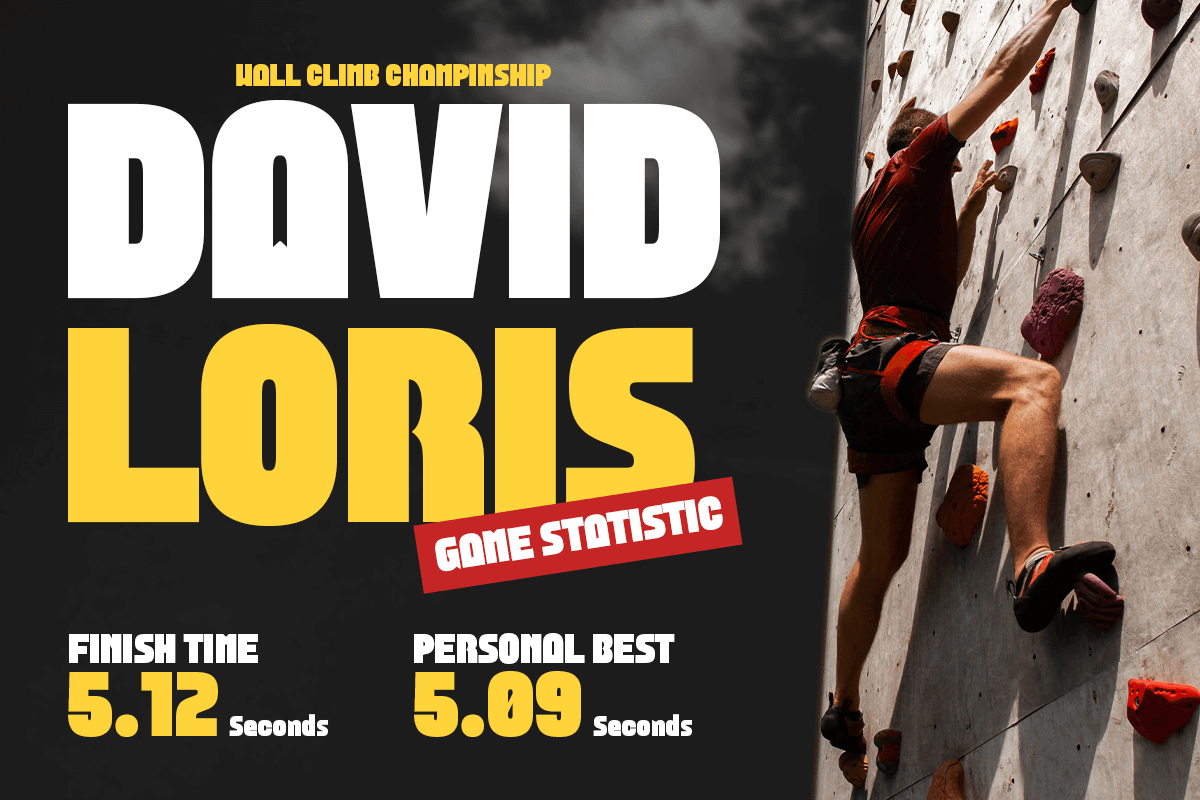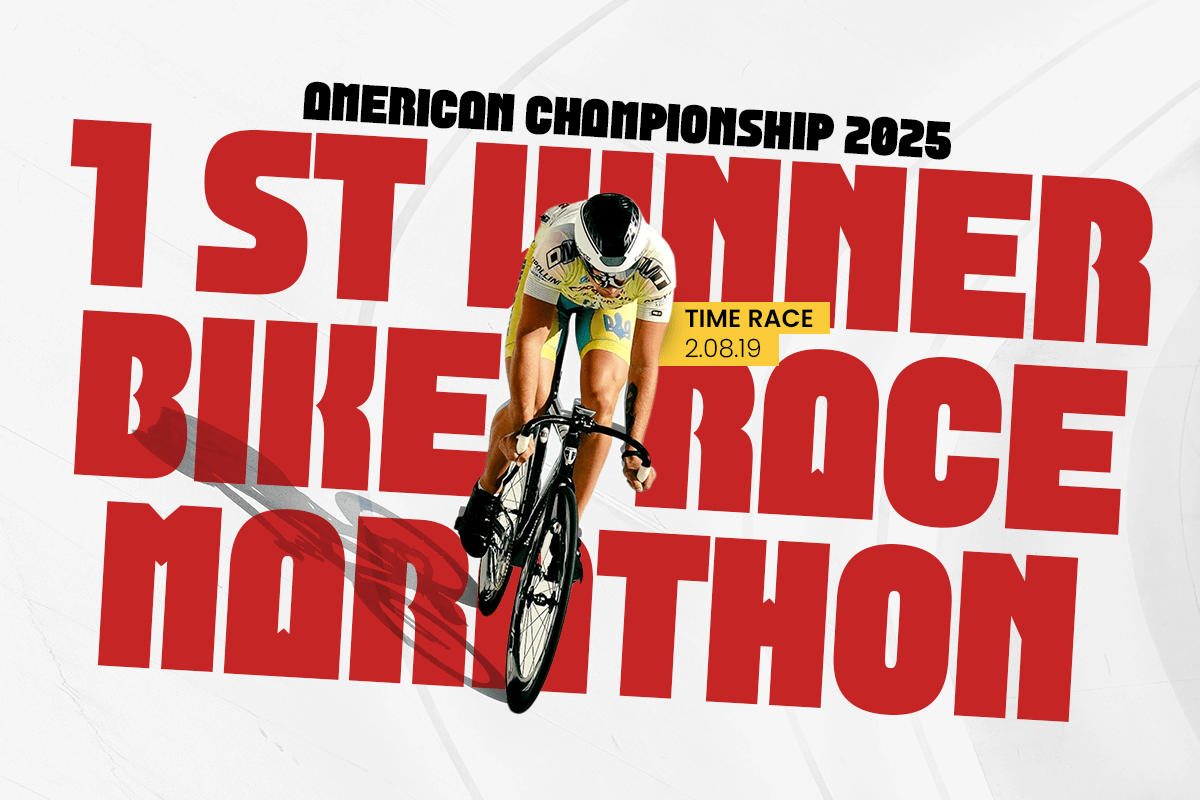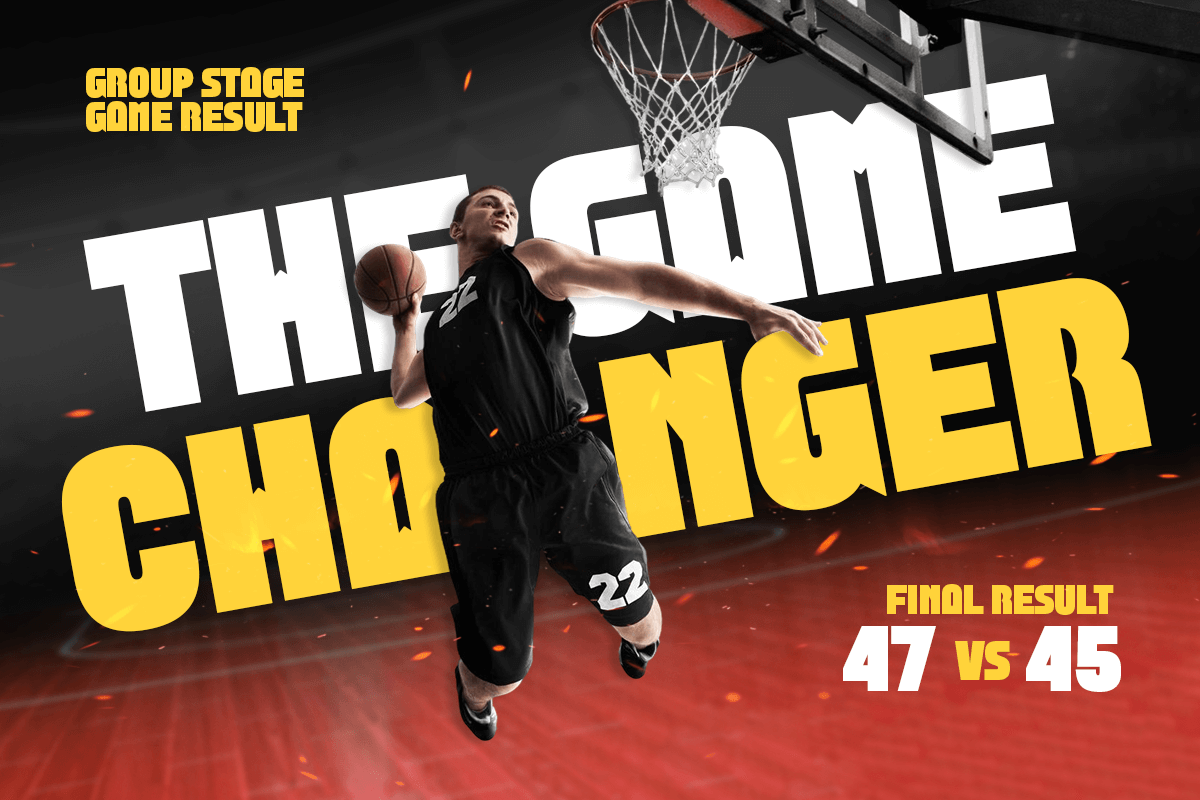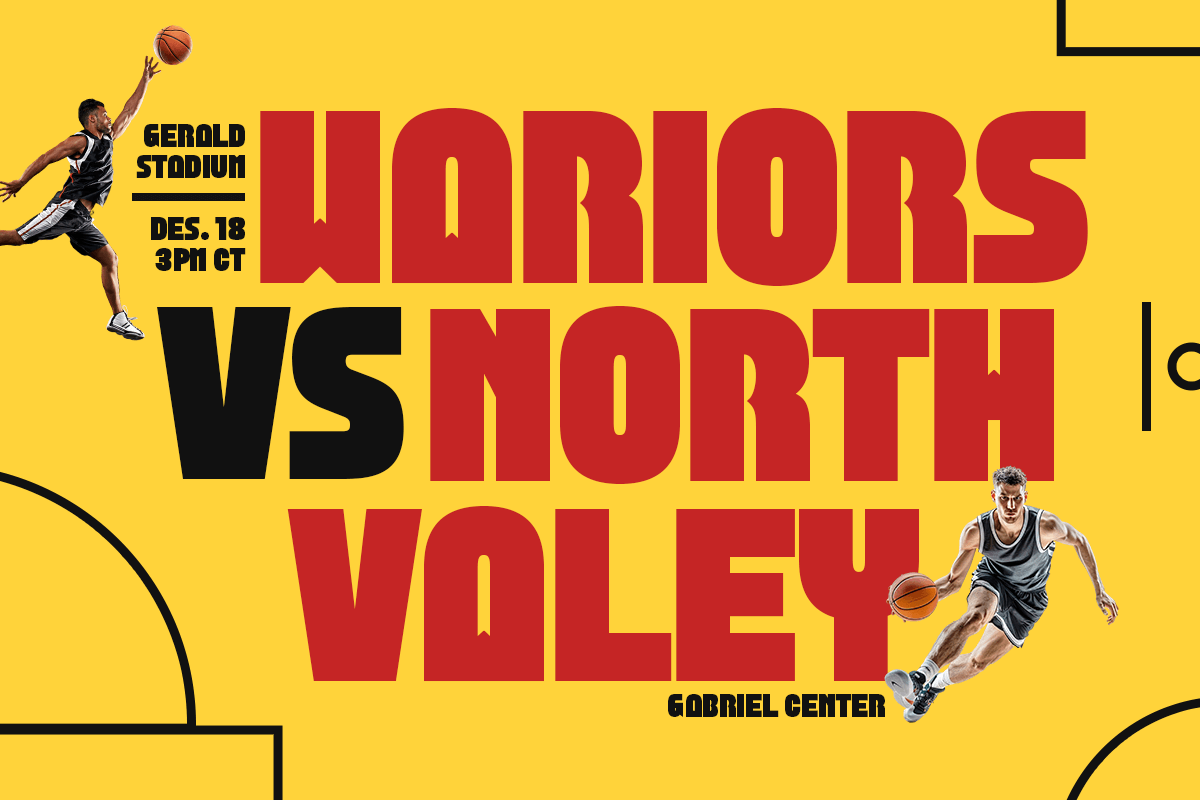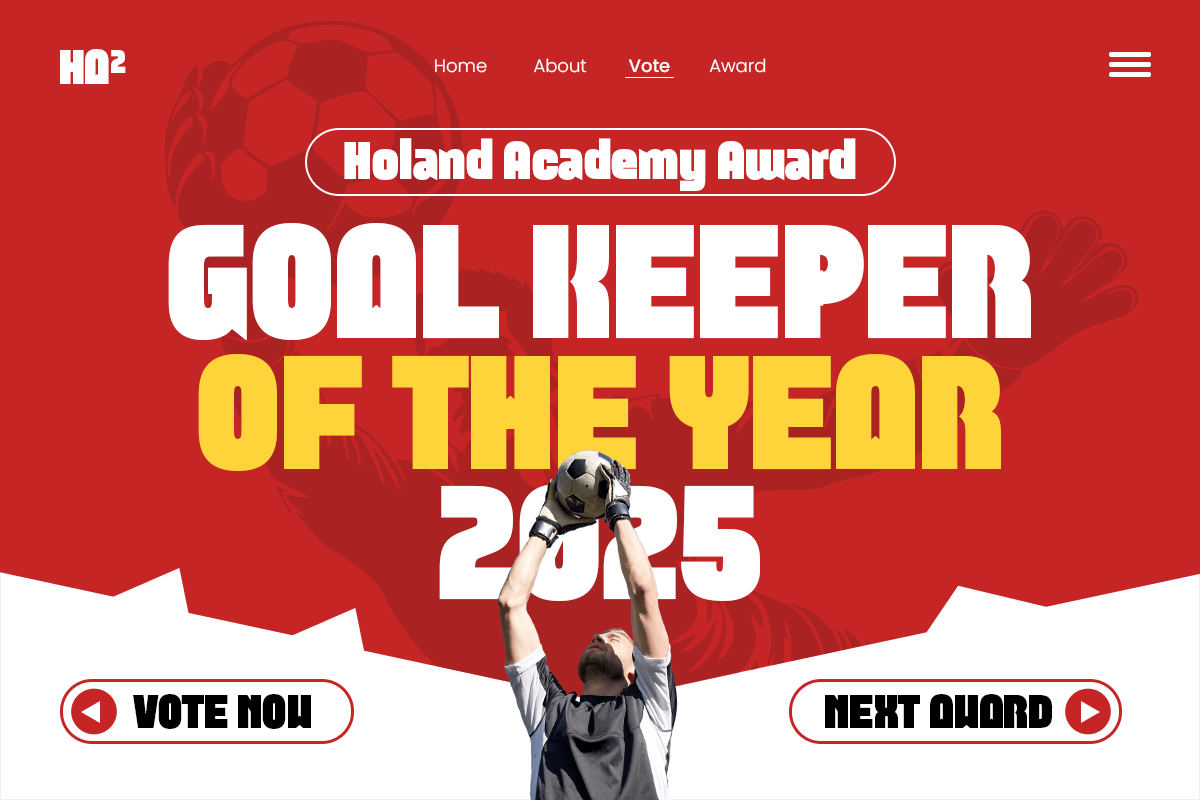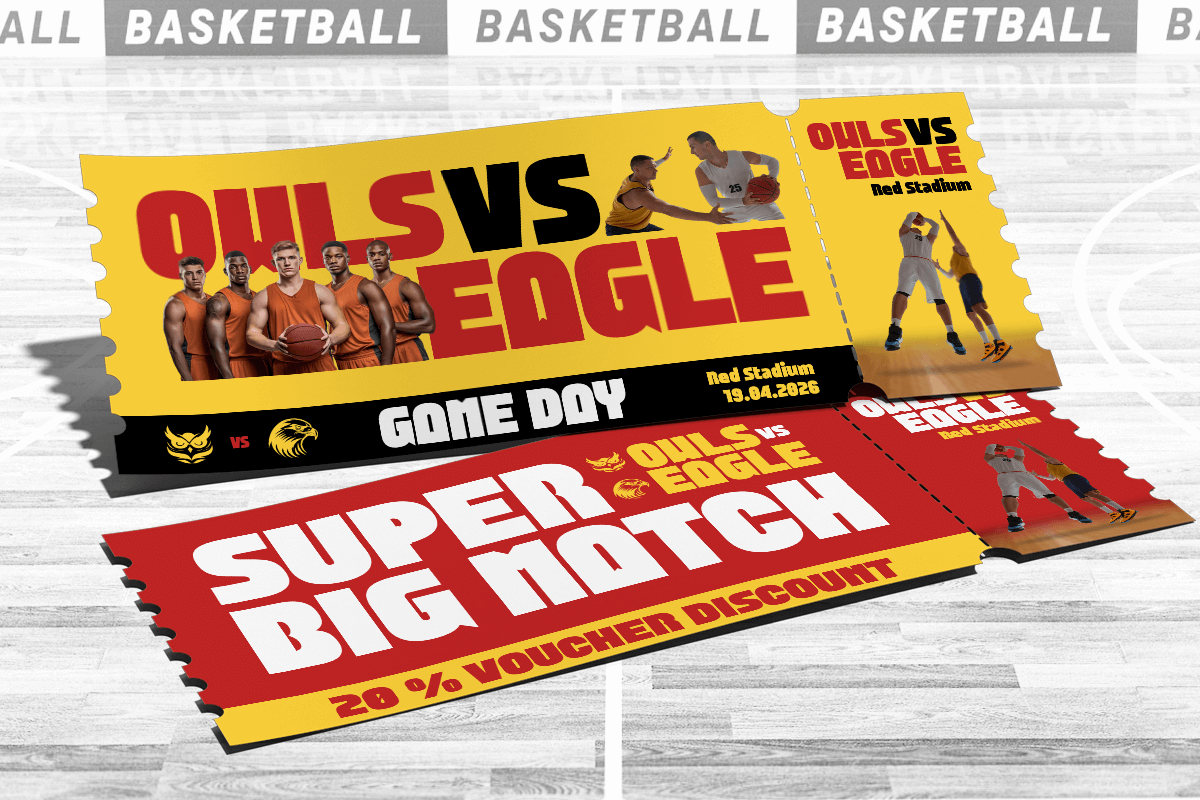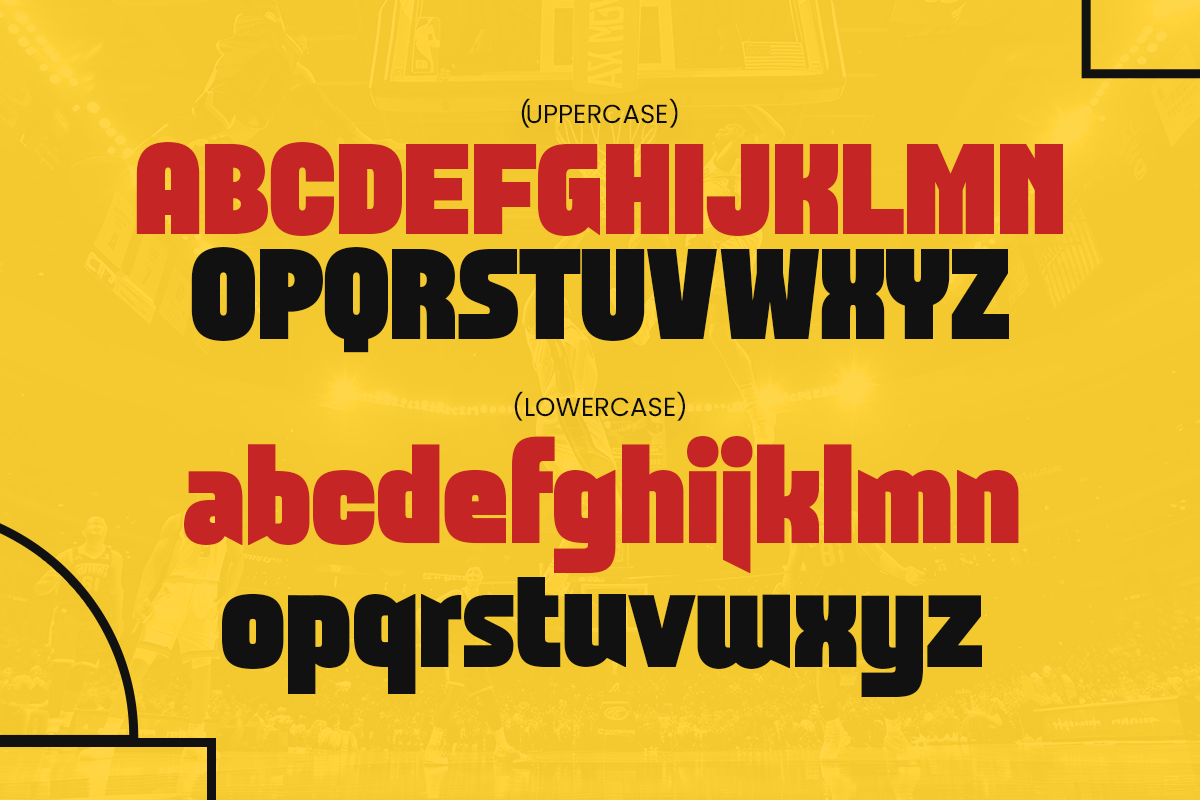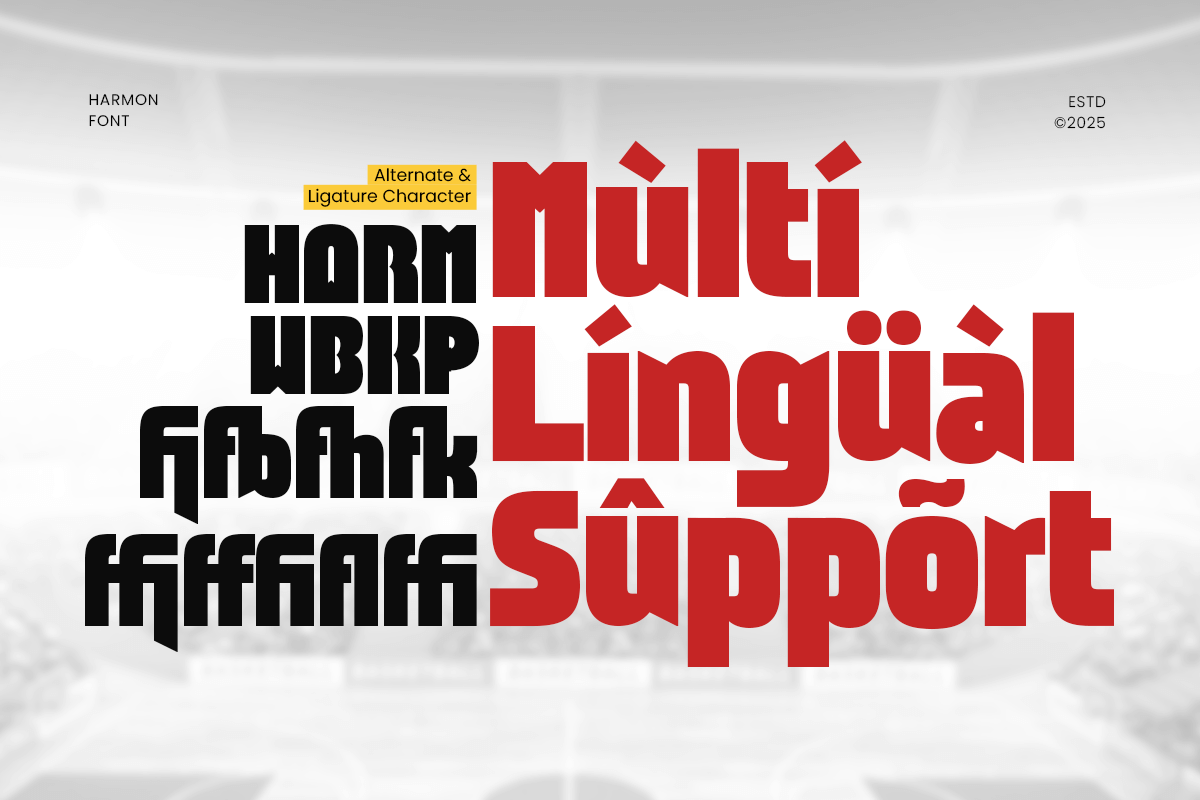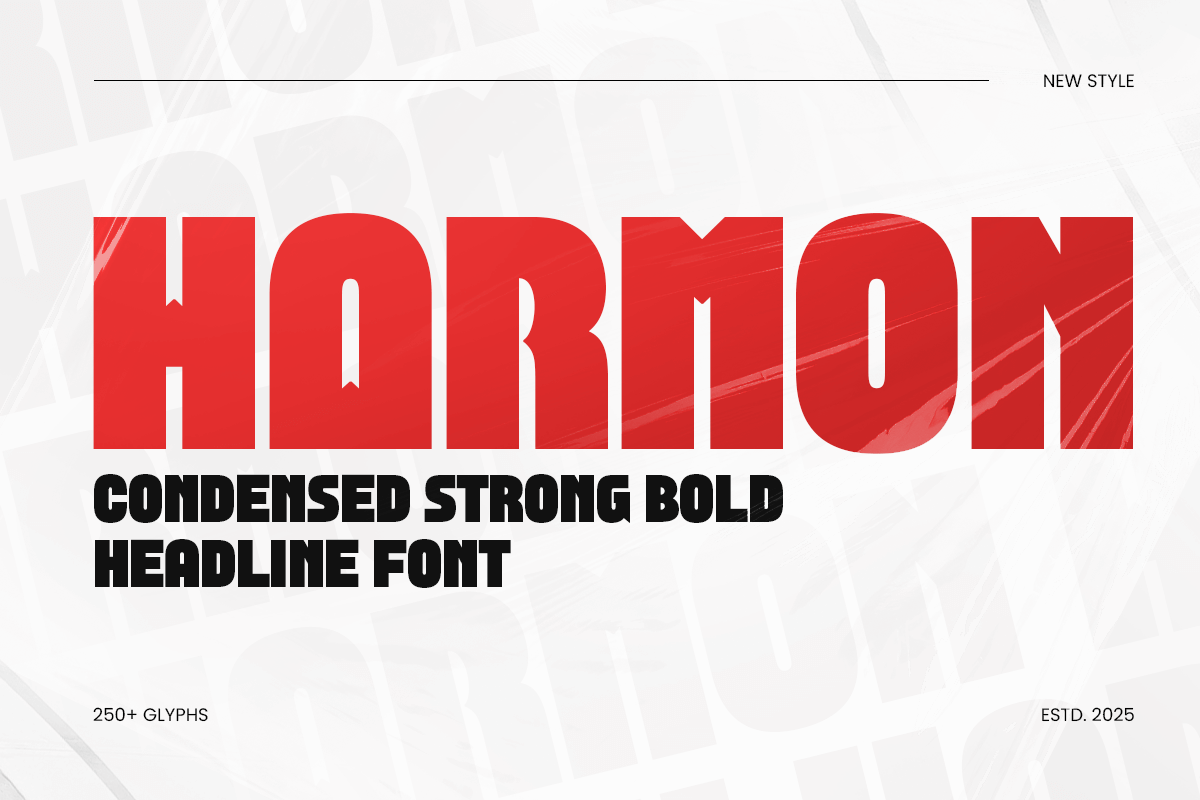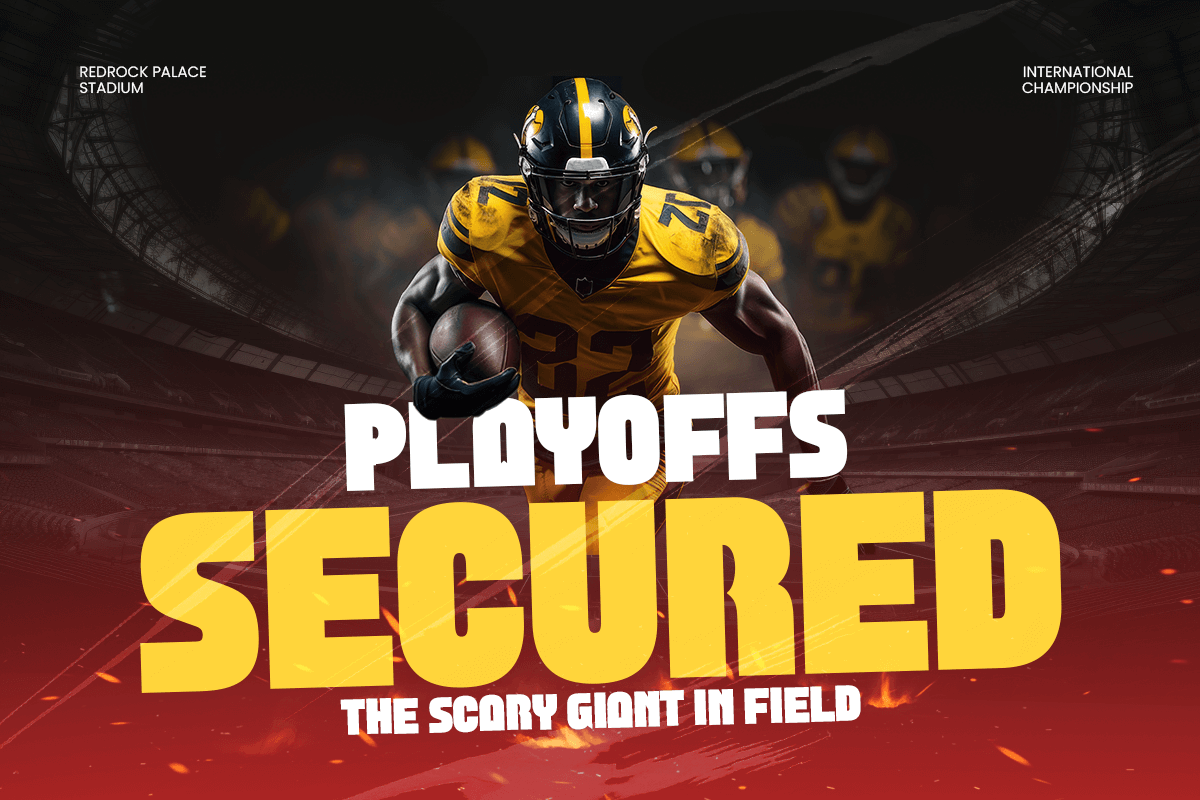
Harmon - Condensed Strong Bold Font
Harmon – Condensed Strong Bold Headline Font
Harmon is a powerful and modern condensed font designed to command attention in headlines and bold branding. With its strong structure, tight spacing, and confident letterforms, Harmon delivers maximum impact while maintaining clean readability — perfect for posters, titles, logos, and editorial layouts.
Crafted for designers who value strength and clarity, Harmon combines bold typography with a sleek modern feel. Whether you’re creating magazine headlines, sports branding, or advertising campaigns, this font ensures every word stands out with authority and precision.
Harmon – Condensed Strong Bold Headline Font Features:
\* Bold and condensed display style for impactful headlines
\* Perfect for posters, magazines, logos, and strong branding visuals
\* Includes uppercase, lowercase, numerals, and punctuation
\* Optimized kerning for balanced visual flow
\* Excellent for both print and digital design projects
Make your message impossible to ignore with Harmon – the condensed bold headline font that defines modern power and style.